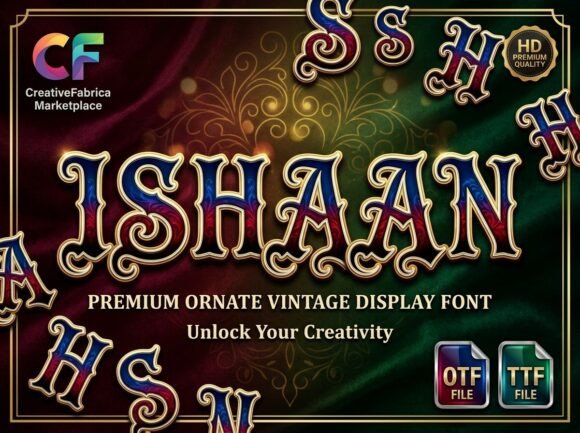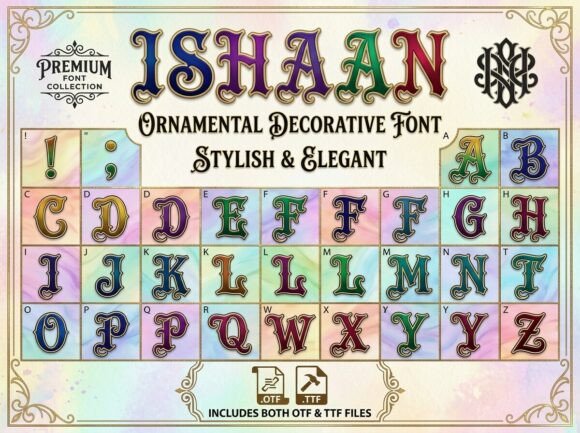
Introduction to Ishaan Font
Exude royal sophistication with Ishaan, a premium display font designed for high-impact luxury.
Characterized by its sharp, chiseled serifs and intricate gold-leaf detailing, this typeface captures the essence of classical prestige Set against a rich velvet backdrop, Ishaan is an exceptional selection for premium spirits labeling, luxury hotel branding, gala event invitations, and cinematic titles.
Key Features of Ishaan Font
Why Choose Ishaan Font?
Ishaan Font offers exceptional quality and versatility, making it a valuable addition to your design toolkit. Whether you’re creating for personal projects or commercial use, Ishaan Font delivers professional results.